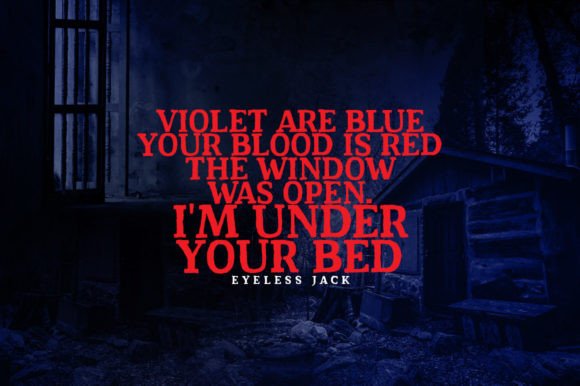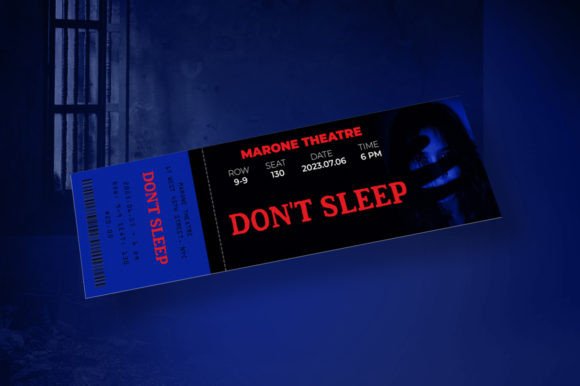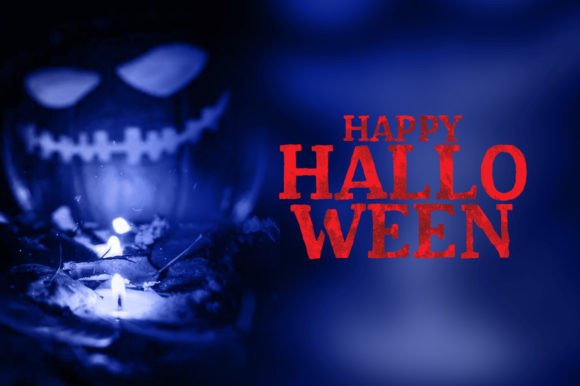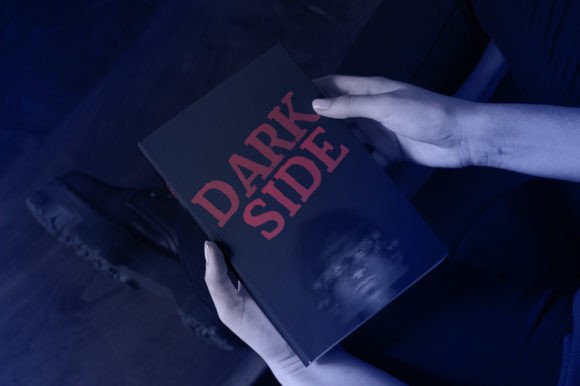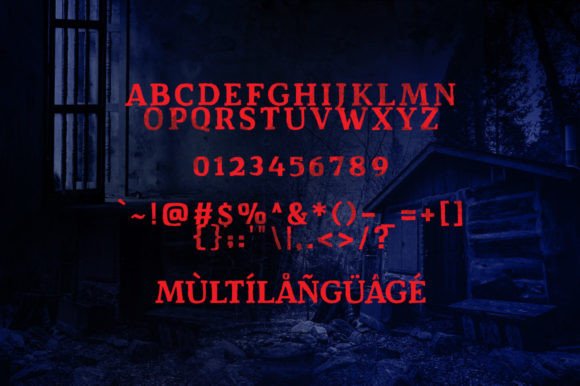
The Dark Hut Font: A Spooky Display Font to Elevate Your Designs
I’ll never forget the time I was working on a Halloween-themed project for a client, and I just couldn’t find the right font to capture the spooky atmosphere. The project was a haunted house invitation, and I wanted something that would send shivers down the recipients’ spines. That’s when I stumbled upon the Dark Hut font, a unique and eerie display font that instantly caught my attention.
As I began to experiment with the Dark Hut font, I realized that it was perfect for Halloween or horror-themed designs. Its bold and quirky style adds a touch of eeriness to any project, making it stand out from the crowd. In this article, I’ll share my experience with the Dark Hut font, its features, and how to use it on various platforms.
An Honest Review of Dark Hut Font
What I Love About Dark Hut Font
- ✨ Unique and quirky design that adds a touch of eeriness to any project
- ✅ Highly legible, even in large and small sizes
- 🎃 Perfect for Halloween or horror-themed designs
While the Dark Hut font is an excellent choice for many projects, there are a few things to keep in mind:
- 🤔 The font may not be suitable for body text, as it’s primarily designed for display purposes
One of the exciting features of the Dark Hut font is its OpenType features and glyphs. With OpenType, you can access additional characters, such as:
- Stylistic alternates: Switch between different font styles, such as italic or bold
- Glyphs: Access additional characters, such as symbols or icons
The Backstory of Dark Hut Font
The Dark Hut font was designed by a team of creatives who wanted to create a unique and spooky font for Halloween and horror-themed designs. Inspired by old haunted houses and creepy mansions, the font is meant to evoke a sense of eeriness and foreboding.
Q: What is the Dark Hut font best used for?
A: The Dark Hut font is best used for Halloween or horror-themed designs, such as invitations, posters, or social media graphics.